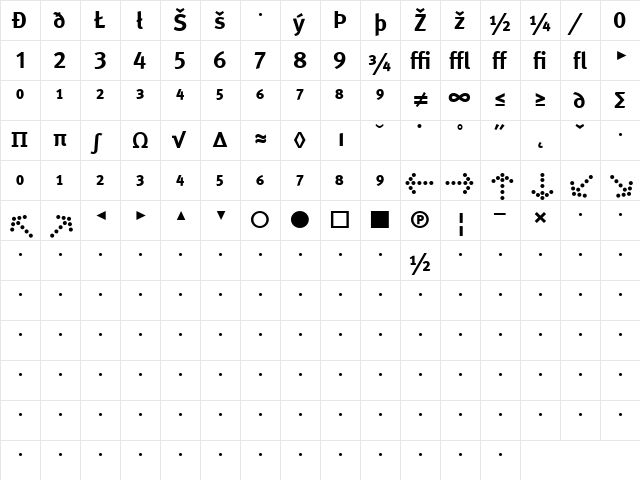
Meta Bold
| Foundry | Erik Spiekermann, Ole Sch fer, published by Fontshop International for the FontFont library |
Design Context for Meta Typeface
Meta takes a measured approach to typography — its balanced proportions and neutral character make it a reliable workhorse for both digital and print work. The heavy weight commands attention and anchors typographic hierarchies.